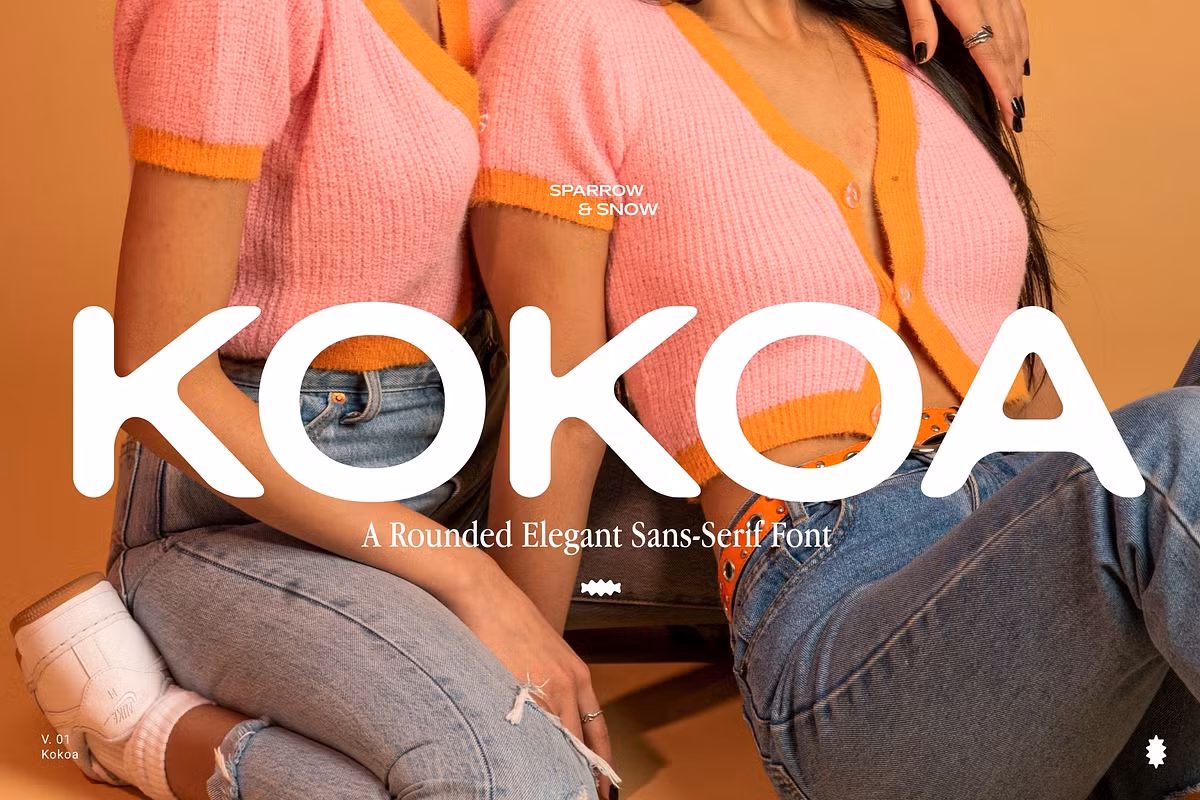
Kokoa - Rounded Elegant Sans-Serif Font is perfect for modern brand identities, friendly app interfaces, contemporary website design, approachable business materials, wellness brand communications, clean packaging design, modern logo creation, child-friendly educational content, accessible signage systems, warm marketing campaigns, organic product labeling, and sophisticated yet approachable design projects.
Kokoa - Rounded Elegant Sans-Serif Font is exciting because it achieves the perfect harmony between professional sophistication and warm approachability through its gentle rounded corners that soften geometric precision without sacrificing elegance or readability. This exceptional typeface features carefully balanced letterforms that combine contemporary sans-serif clarity with subtle rounded details that create an inviting, human-centered aesthetic. The font's warm character makes technology feel friendly and brands appear more accessible while maintaining professional credibility.
Kokoa - Rounded Elegant Sans-Serif Font includes comprehensive font families: Regular Friendly Style, Bold Confident Weight, Light Gentle Touch, Medium Balanced Format, Italic Flowing Slant, Condensed Efficient Width, Extended Open Format, Ultra Light Version, Black Impact Style, and Special Rounded Symbols, providing complete solutions for modern, approachable design requirements and contemporary brand communications.
This innovative typography solution transforms standard communications into warm, engaging brand experiences through its perfect balance of professional elegance and human-centered design principles. Kokoa - Rounded Elegant Sans-Serif Font Free Download enables designers and modern brands to access premium approachable typography that instantly adds warmth, sophistication, and contemporary appeal to any creative project. The font's carefully crafted rounded elements ensure friendly accessibility while maintaining exceptional clarity and professional polish.
Tech companies, wellness brands, and modern businesses trust Kokoa - Rounded Elegant Sans-Serif Font for its ability to communicate innovation, approachability, and modern values to audiences seeking both professionalism and human connection in brand communications. The typeface's versatile construction performs exceptionally well across various applications, from intimate app interfaces to large-scale corporate branding systems. Its extensive character support includes multilingual capabilities and modern design elements that enhance contemporary brand presentations.
The design philosophy behind Kokoa - Rounded Elegant Sans-Serif Font emphasizes the importance of human-centered design in our increasingly digital world, creating typography that bridges the gap between technological precision and emotional warmth. This balance-focused approach creates a font that feels genuinely modern while maintaining accessibility across different contemporary contexts and approachable brand expressions.
Whether creating tech startup identities, wellness brand materials, or modern marketing campaigns, this rounded elegant sans-serif delivers exceptional results that connect with audiences on both professional and emotional levels. Download Kokoa - Rounded Elegant Sans-Serif Font today and discover how premium approachable typography can transform your design projects into warm expressions of modern sophistication, friendly professionalism, and the perfect balance between elegance and accessibility.